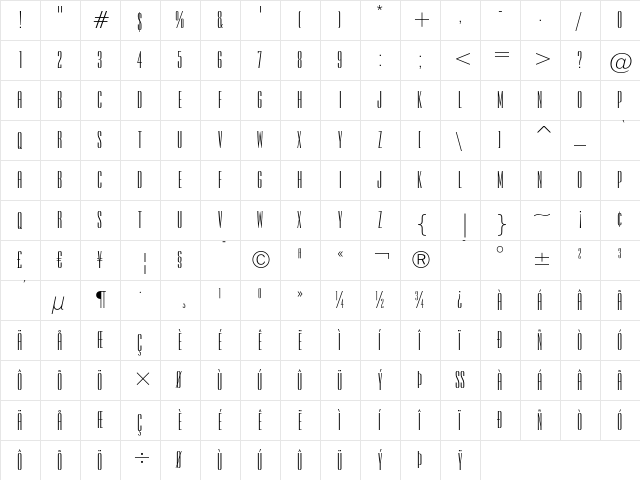
Empire Regular Font Preview
Empire Regular
Design Context for Empire Typeface
Empire is a composed and adaptable typeface that performs quietly and consistently across a wide range of design contexts.